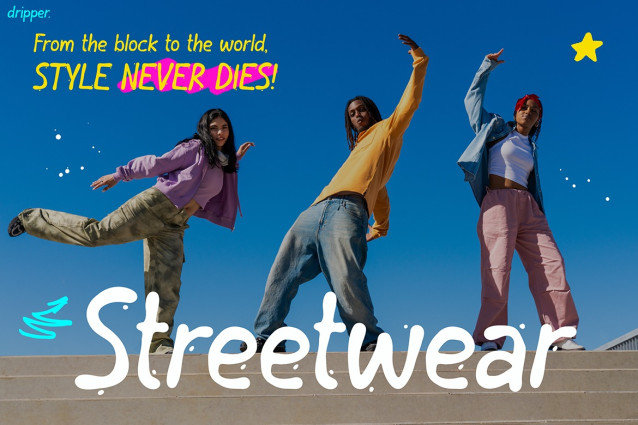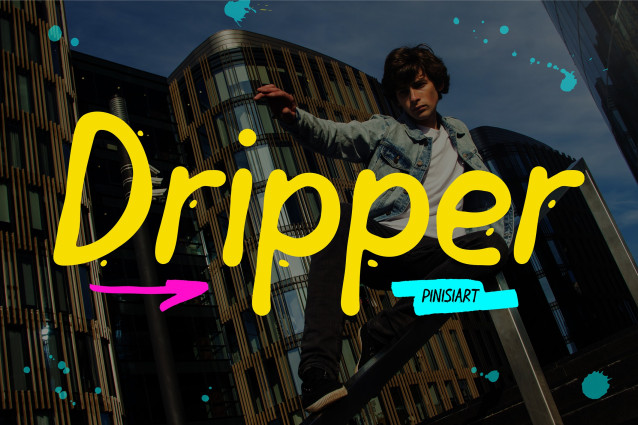
Dripper Font isn’t just another typeface—it makes a bold statement of street culture, creativity, and confidence. Graffiti art and dripping paint strokes inspire its design, transforming ordinary text into something powerful. Moreover, the font brings the raw vibe of urban walls together with a polished digital look. Each letter bursts with energy and gives your design a bold, stylish edge.
In addition, Instagram Font Dripper delivers stunning results across many design needs. Use it for posts, branding, or apparel, and your words instantly grab attention. Unlike plain fonts that fade into the background, this one refuses to stay quiet. It speaks loud, bold, and fearless, which helps creators push their message further.
Furthermore, the font combines fun with rebellion. Its strokes look playful but carry strong weight. Because of this mix, you can adapt it to both casual and professional projects. From music covers to youth campaigns, Instagram Font Dripper fuels designs with unstoppable energy.